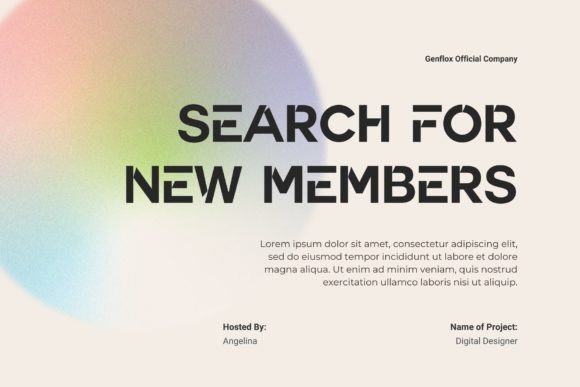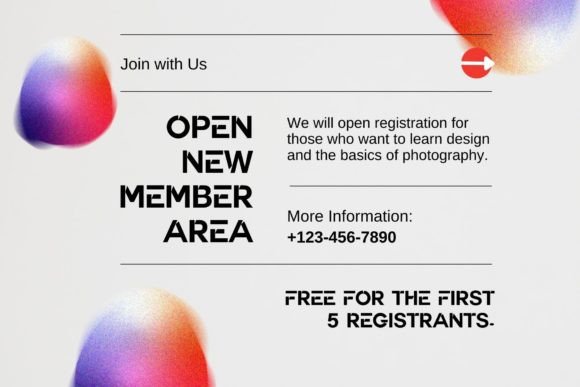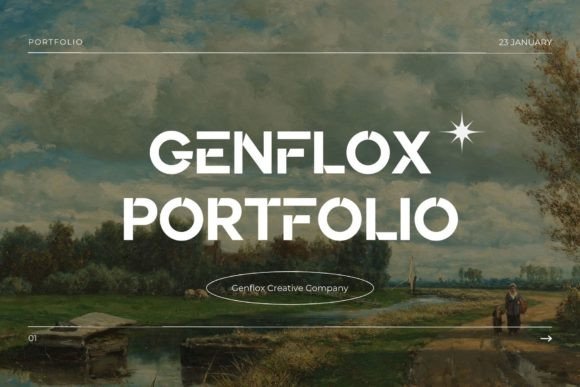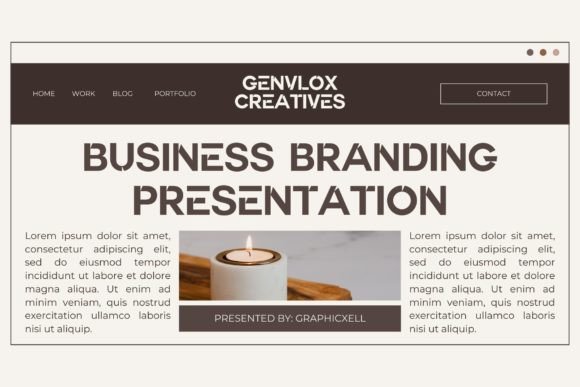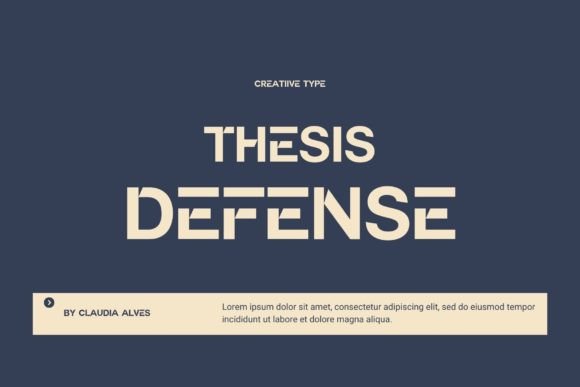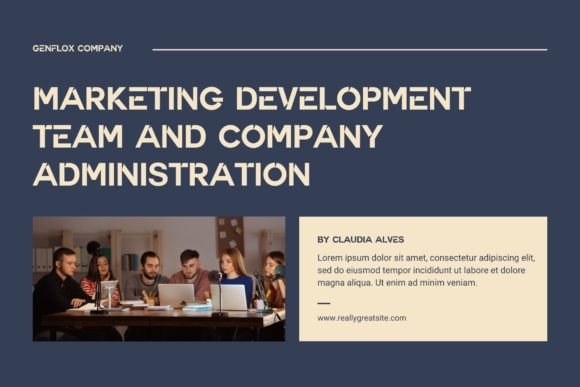
The Futuristic Charm of Genflox Font: A Designer’s Delight
I still remember the time I was working on a futuristic branding project for a tech startup. I had spent hours browsing through font libraries, but nothing seemed to capture the essence of innovation and sophistication that I was looking for. That was until I stumbled upon the Genflox font. Its sleek lines, geometric precision, and minimalist appearance immediately caught my attention. In this article, I’ll share my experience with Genflox, its features, and how to make the most of this versatile font.
First Impressions: A Love Affair with Genflox
As soon as I started using Genflox, I knew I had found something special. Here are a few things that I love about this font:
- ✨ Sleek and modern design: Genflox boasts a clean and minimalist appearance that screams contemporary aesthetic.
- ✅ Versatility: This font is suitable for a wide range of applications, from branding projects to posters, product packaging, headlines, or display purposes.
- 💡 Attention-grabbing: The streamlined and refined form of the letters, characterized by smooth curves and sharp angles, makes it perfect for grabbing attention.
- 🔍 Geometric precision: The font’s geometric precision gives it a sense of sophistication and innovation.
While Genflox is an excellent font, there are a few minor quirks to be aware of:
- 🤔 Limited serif options: As a sans-serif font, Genflox might not be the best choice for projects that require a traditional serif look.
- ⚠️ Not ideal for body text: Due to its bold and futuristic design, Genflox might not be the most readable font for lengthy body text.
The Designer Inspiration Behind Genflox
Genflox was designed by a team of typographers who aimed to create a font that embodies the spirit of innovation and sophistication. Inspired by futuristic architecture and cutting-edge technology, Genflox is the perfect choice for designers who want to create bold and attention-grabbing designs.
| Font Name | Genflox Font |
| Author | Graphicxell |
| What is Genflox font? | Genflox is a futuristic sans-serif font designed with sleek lines and geometric precision. |
| Is Genflox suitable for body text? | No, Genflox is better suited for headlines, titles, or display purposes due to its bold and futuristic design. |
| Does Genflox support OpenType features? | Yes, Genflox supports OpenType features, including stylistic alternates, glyphs, and more. |